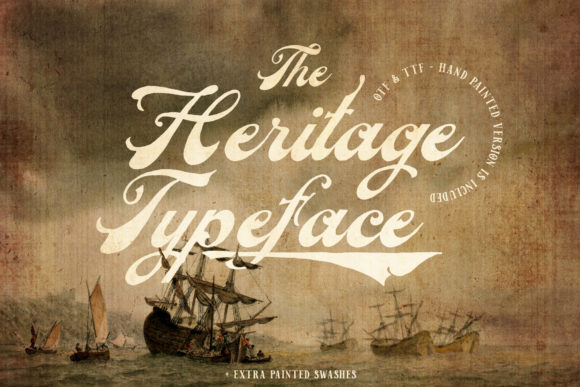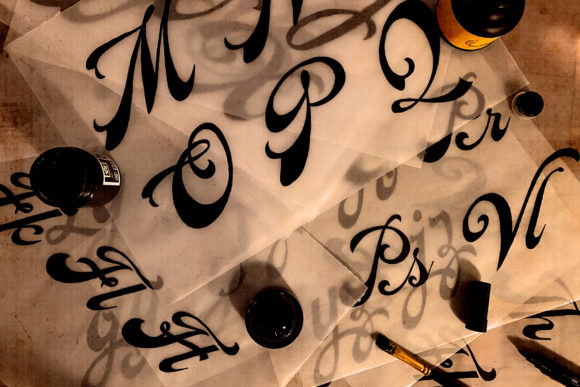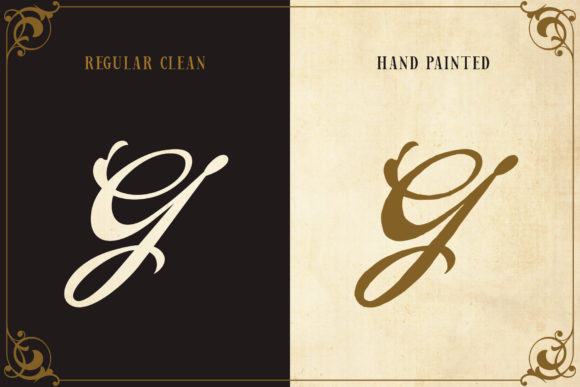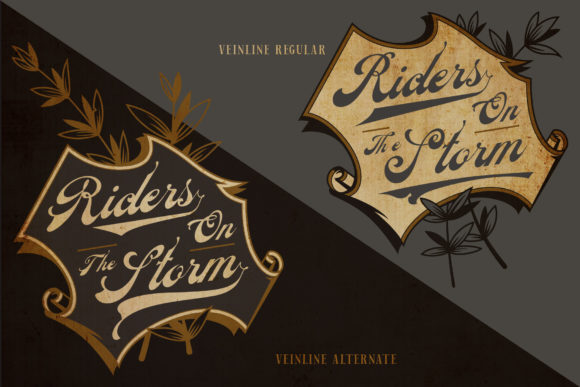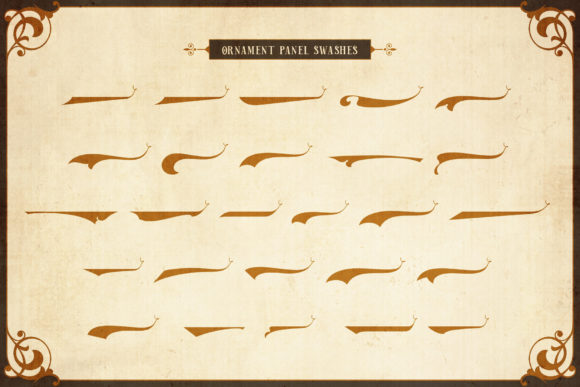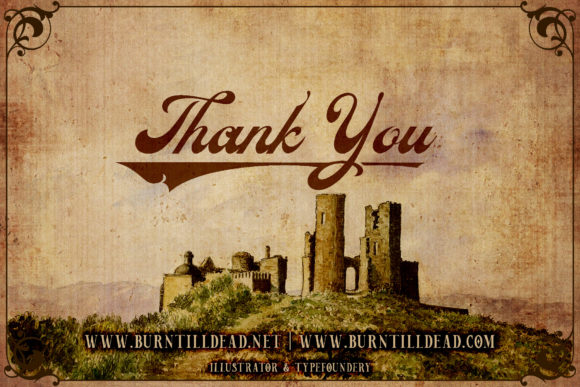
Veinline Font
About Veinline Font
Veinline is a gorgeous vintage styled handwritten font, crafted to give your headlines and logotype projects a stylish touch. This font reads as strong, confident, and dynamic and can add tons of nostalgic character to your designs.